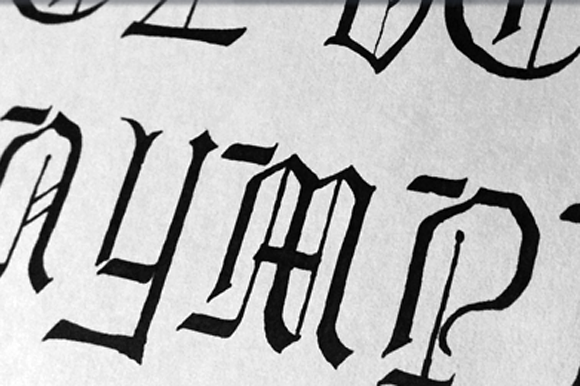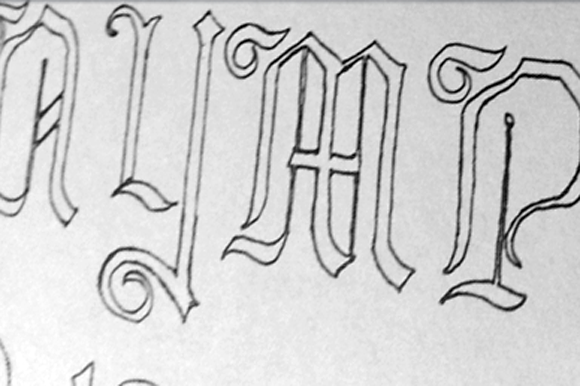
Introduction to Lore Pandemonia Font
| 👤 Author | Dawnland |
Enter the Lore Pandemonia Font, a stunning creation from the talented team at Dawnland. This versatile font is more than just a pretty face; its transparent background and sleek design make it an invaluable asset for any creative project. Whether you’re working on a logo, a poster, or a website, the Lore Pandemonia Font is sure to elevate your design game.
So, what sets this font apart from the rest? In this article, we’ll dive into the world of the Lore Pandemonia Font and explore its unique features, design applications, and what makes it a valuable addition to any designer’s toolkit.
Lore Pandemonia Font
- Unique, hand-drawn style with intricate details and textures
- Features a transparent background, allowing for seamless integration with any design
- Perfect for use in digital art, graphic design, and print media
Honest Review: Lore Pandemonia Font
I recently had the chance to work with the Lore Pandemonia Font, and I must say it’s been a delight. As a designer, I’m always on the lookout for high-quality fonts that can elevate my creative projects, and this one certainly delivers.
One of the things that works well with this font is its versatility. It’s perfect for a wide range of design projects, from logos and branding materials to digital products and web design. The font is available for free download, making it an excellent resource for designers on a budget.
Some of the standout features of the Lore Pandemonia Font include its transparent background and high-quality design. This makes it easy to use in a variety of design contexts, from simple text overlays to more complex compositions.
- ✨ Works well for a wide range of design projects, including logos, branding materials, and digital products.
- ✨ High-quality design with a transparent background.
⚠️ One of the limitations of the Lore Pandemonia Font is that it may not be suitable for use in very small sizes or in situations where a high level of contrast is required. However, for most design projects, this font should be more than sufficient.
Overall, I’m very impressed with the Lore Pandemonia Font. Its high-quality design, versatility, and free availability make it an excellent resource for designers of all levels. Whether you’re working on a personal project or a commercial client, this font is definitely worth checking out.
Tips for Getting the Most Out of Lore Pandemonia Font
To get the most out of the Lore Pandemonia Font, use it in conjunction with a transparent background to create a sense of depth and dimension. You can also experiment with different font sizes, colors, and styles to create a unique visual effect.
The Lore Pandemonia Font is perfect for creative projects such as graphic design, digital art, and typography. You can use it to create eye-catching headlines, logos, and branding elements. The font is also suitable for academic and professional presentations, reports, and documents.
Does the Lore Pandemonia Font have a transparent background?
Yes, the Lore Pandemonia Font has a transparent background, making it ideal for creative projects that require a clear and subtle design aesthetic. The font’s transparent background also allows designers to easily combine it with other design elements and backgrounds.